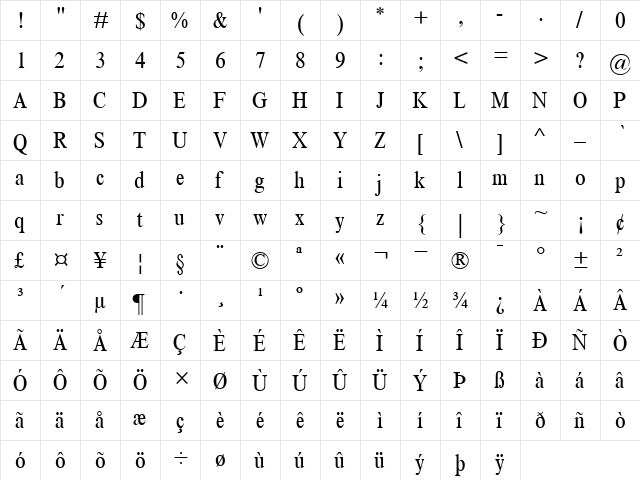
TimesNewRomanMT-Condensed Roman
Design Context for TimesNewRomanMT-Condensed Typeface
TimesNewRomanMT-Condensed is a composed and adaptable typeface that performs quietly and consistently across a wide range of design contexts. Its narrow stance lets it pack a punch even in space-constrained designs.
Pro Tip: Use TimesNewRomanMT-Condensed in both headline and body roles to test its range before committing to a single application.